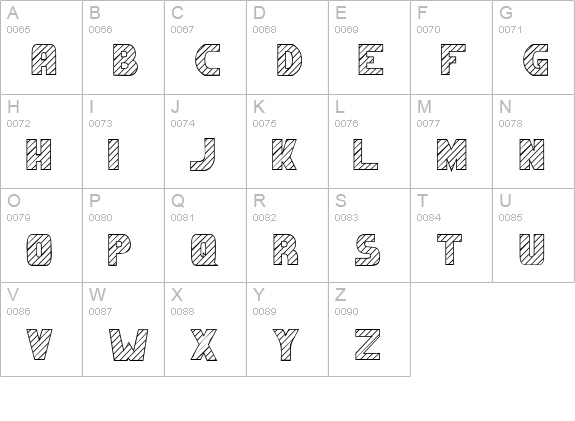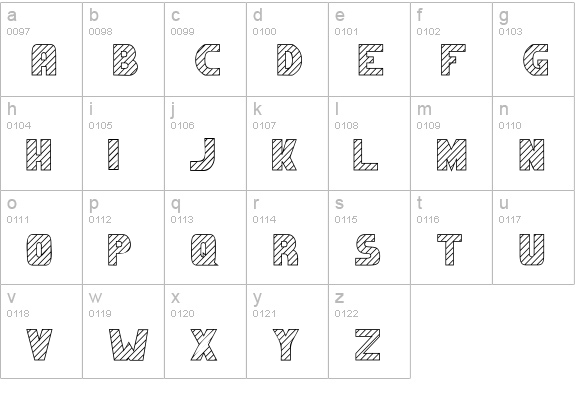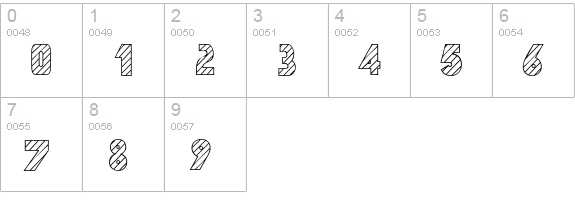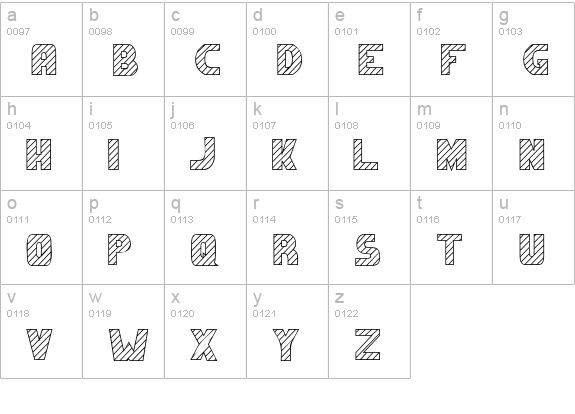
Candystriper Font Details
Introducing Candystriper font, a delightful and whimsical typeface that will add a touch of sweetness to your design projects. This charming font features playful curves and distinctive stripes that evoke a sense of fun and nostalgia. Perfect for a variety of creative applications, from invitations and greeting cards to branding and packaging. What's even better is that Candystriper font is completely free to download at FontsMarket.com. So go ahead and bring a bit of joy and whimsy to your designs with this delightful typeface.